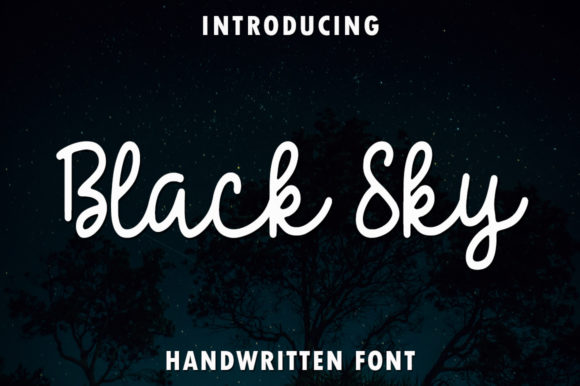
The Sweet Spot: Discovering the Charm of Black Sky Font
I’ll never forget the time I was working on a wedding invitation project, and my client asked for a font that was “sweet, delicate, and joyful.” I scoured the internet, tried out dozens of fonts, but nothing seemed quite right. That was until I stumbled upon Black Sky Font. ✨ This beautiful, handwritten font has been a game-changer for me, and I’m excited to share its charm with you.
So, what makes Black Sky Font so special? Here are a few things I love:
- ✨ Sweet and delicate: This font is perfect for adding a touch of romance and whimsy to your designs.
- ✅ Highly legible: Despite its delicate nature, Black Sky Font is surprisingly easy to read, even at smaller sizes.
- 💕 Versatile: This font works beautifully for a wide range of projects, from wedding invitations to greeting cards, and even social media graphics.
Of course, no font is perfect, and Black Sky Font has a few small quirks:
- 🤔 Limited character set: While the font has a lovely selection of characters, it’s not as extensive as some other fonts.
- ⚠️ May not work well at very small sizes: Black Sky Font can become a bit fuzzy or pixelated when scaled down too far.
Black Sky Font was designed by a talented type designer who wanted to create a font that captured the magic of a clear, starry night sky. With its delicate lines and joyful feel, this font is perfect for adding a touch of romance and whimsy to your designs.
| Is Black Sky Font suitable for body text? | While Black Sky Font is beautiful, it’s best suited for headings, titles, and short paragraphs. For longer body text, a more traditional font may be more readable. |